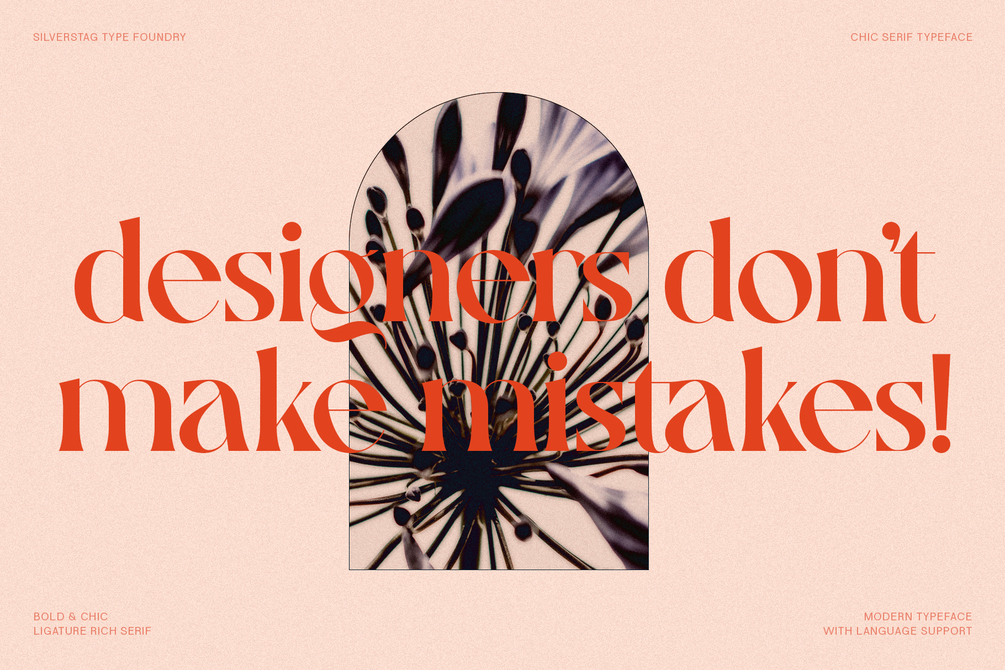
Gallica - A Powerful Ligature Serif Font
Introducing Gallica, a serif font that shatters expectations with its audacious strokes and unyielding grace. More than just another typeface, Gallica is a design force, meticulously crafted to empower your vision and captivate your audience.
Imagine the possibilities:
• Command attention with bold headlines that demand to be seen.
• Infuse elegance into your body text with refined curves and unique letterforms.
• Express personality with 70+ ligatures and alternates, offering endless stylistic options.
• Reach a global audience with comprehensive support for over 90 languages.
Gallica transcends the ordinary. Its modern curves and distinctive character shapes set it apart, making it ideal for:
• Branding materials that demand to be remembered.
• Website designs that exude sophistication and style.
• Marketing campaigns that crave a unique voice.
• Editorial layouts that yearn for timeless elegance.
Not just a font, Gallica is a statement. It's a declaration of your commitment to boldness, beauty, and boundless creativity.